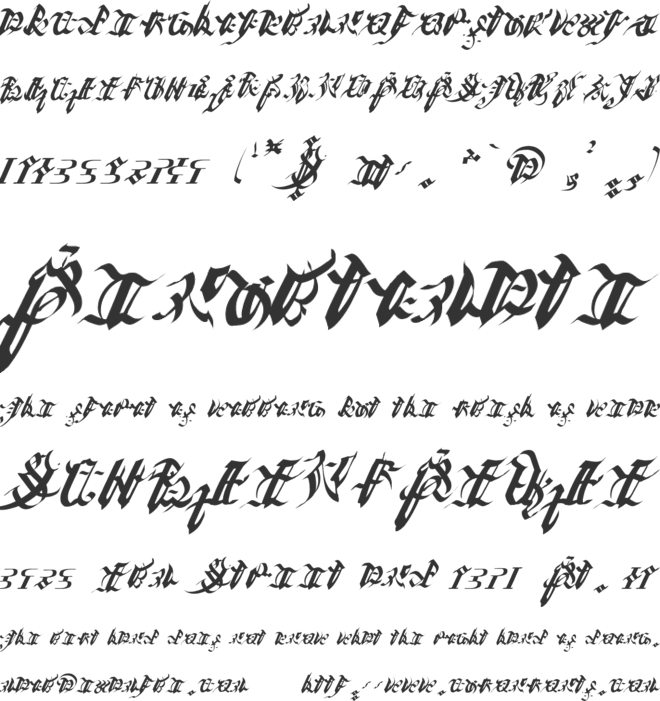
Ivalician Gothic Font
Font used in the video game Final Fantasy XII - Drawn by myself but original design is © Square-Enix
created by el Hechicero (http://www.ff-omeganebula.com) - original design from Square-Enix ( A-z, 0-9 only)